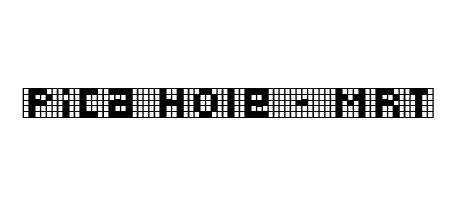
Pica Hole
By Apostrophic Labs
Category Modular, Digital, Digital Clock, Typewriter, Monospaced, Flat
Pica Hole - MRT is a bold, geometric sans-serif typeface. Its blocky, pixelated characters create a striking, almost digital aesthetic. The design is clean and unadorned, yet the slightly irregular spacing adds a touch of playful imperfection. It exudes a retro-futuristic vibe, suggesting both vintage technology and modern digital art.